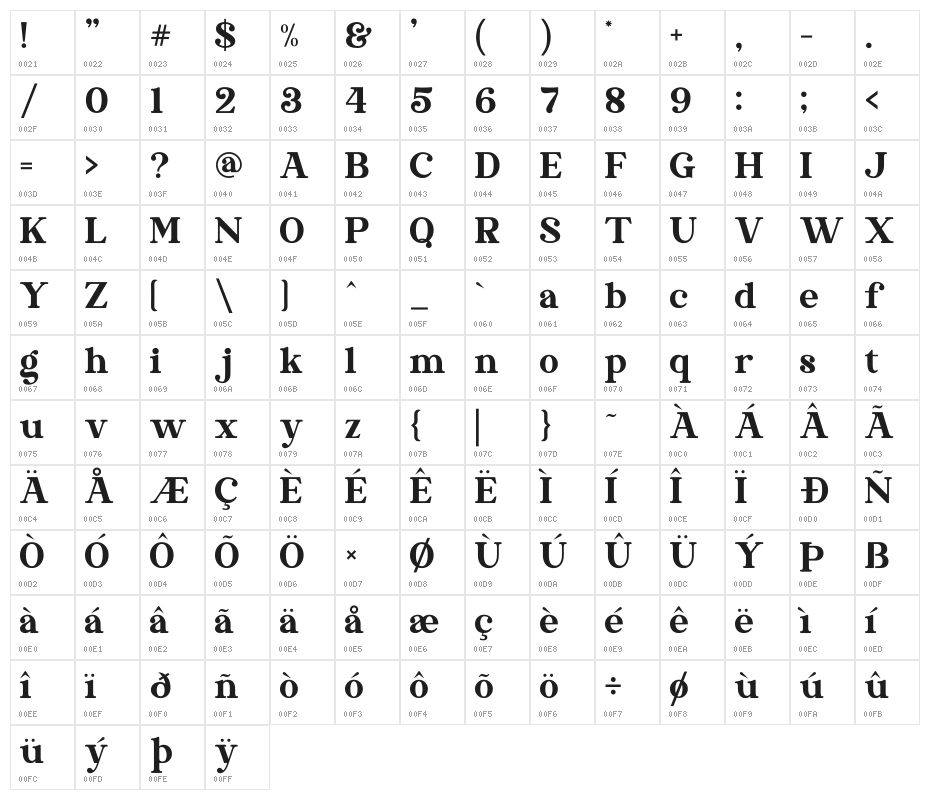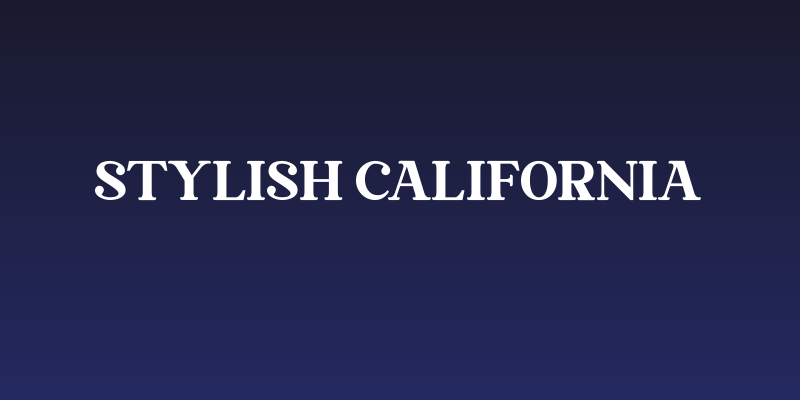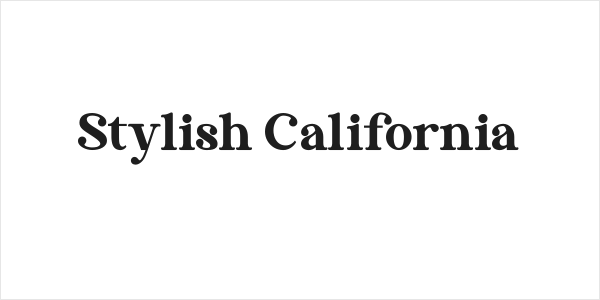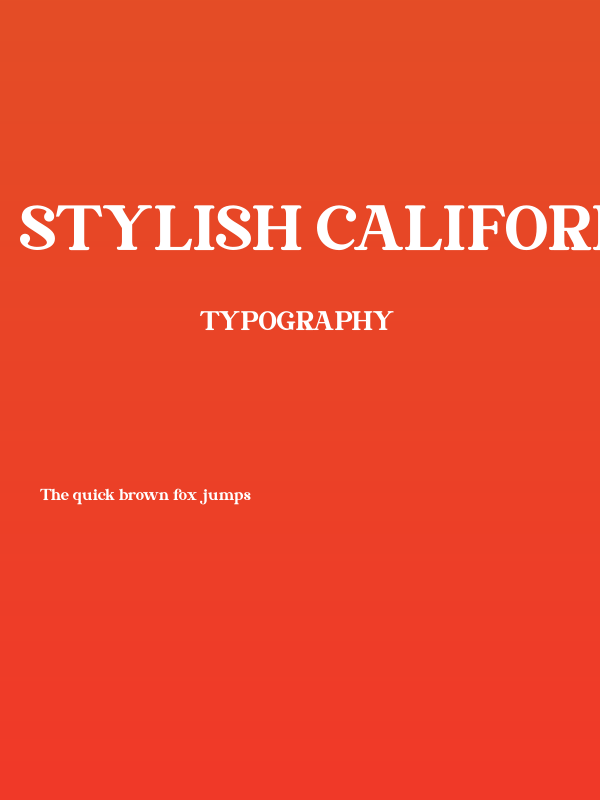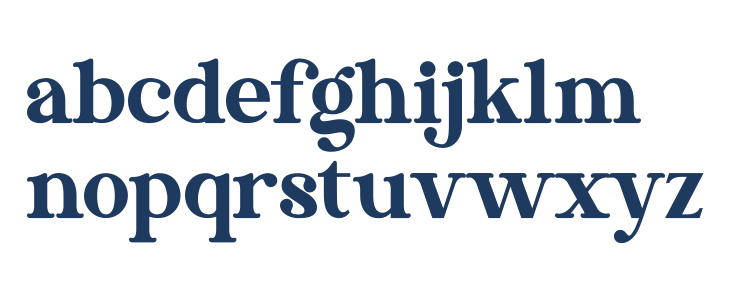
Stylish California Font
Stylish California Description
This font features a bold and elegant serif style, characterized by its thick strokes and pronounced serifs. The uppercase letters are strong and commanding, while the lowercase letters maintain a consistent flow with slightly rounded edges. The numerals are robust and clear, making them highly legible. Special characters are designed with a classic touch, adding to the overall sophistication of the font. The spacing between characters is balanced, ensuring readability without compromising on style. This font is ideal for projects that require a touch of elegance and authority.
| Use Case | Headlines, Logos, Editorial Design |
| Proposed Projects | Ideal for luxury branding, editorial design, book covers, and high-end packaging. |